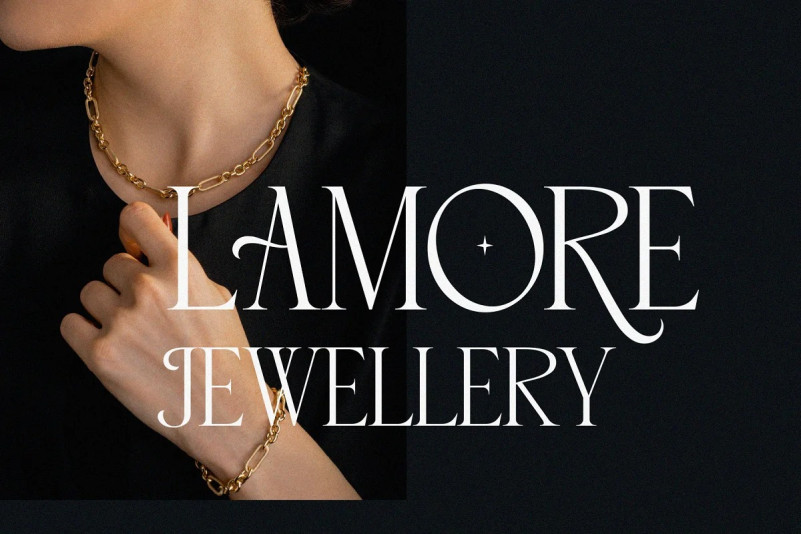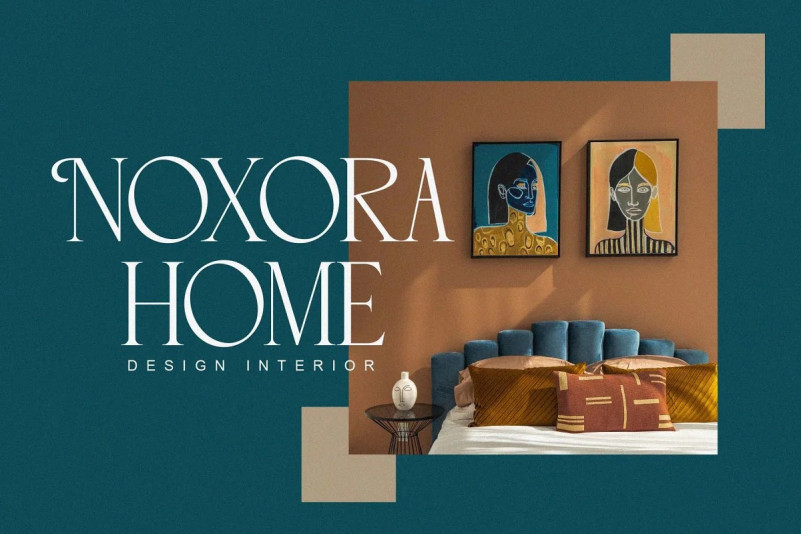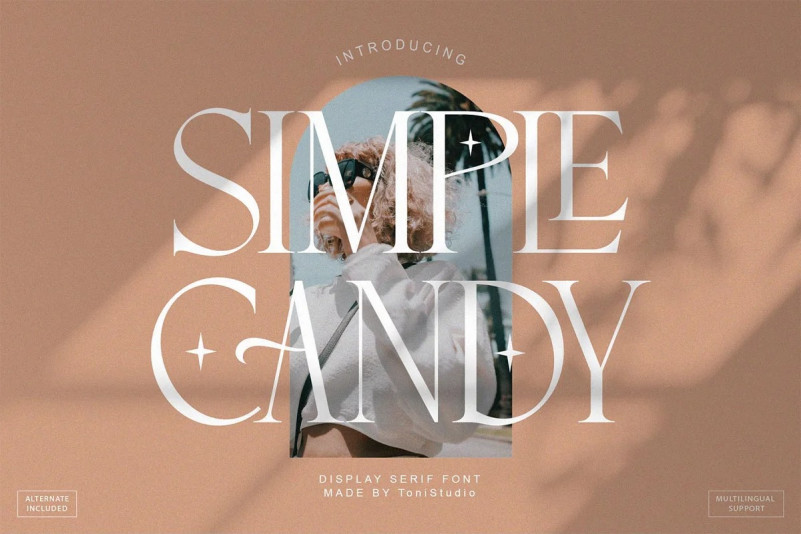
Simple Candy Font
Introducing SIMPLE CANDY Serif Font  is here! Fonts with subtle curves and a highly sophisticated look apply to any design, and serif fonts are elegant all-caps. With perfect curves and silky smooth edges, SIMPLE CANDY is perfect for adding a classy and modern touch to your projects. Perfect for branding, weddings, social media, product design, stationery, advertising and more. For those of you who need a touch of elegance, style, class, chic and modernity for your designs, this font is made for you!
SIMPLE CANDY is built with OpenType features and includes ligatures, alternatives, numbers, punctuation, and also supports other languages.